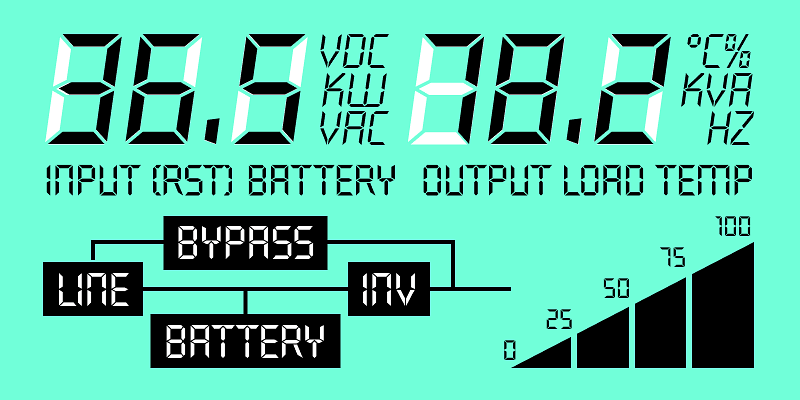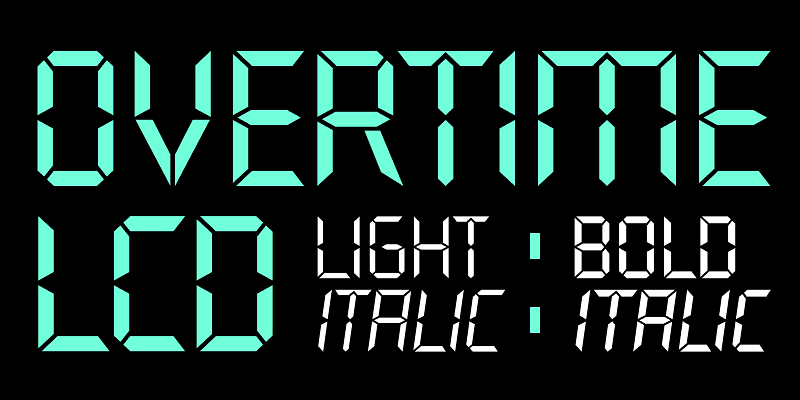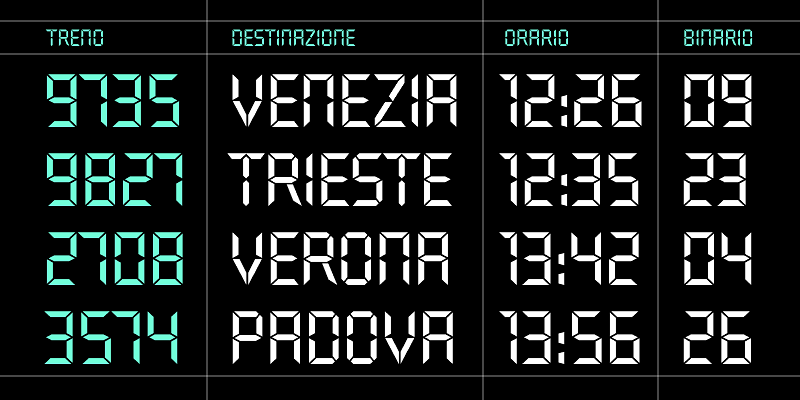
Overtime LCD is a decorative typeface replicating the pixelated look of older liquid crystal displays. Available in Regular and Bold, graphic designers can use it to design electronic displays, digital clocks, album covers, book jackets, club flyers, product packaging, or any other situation where you want to mimic this specific vintage vibe. Treat it like a puzzle and get creative! Break it apart, and create your word shapes for clever typographic lockups.